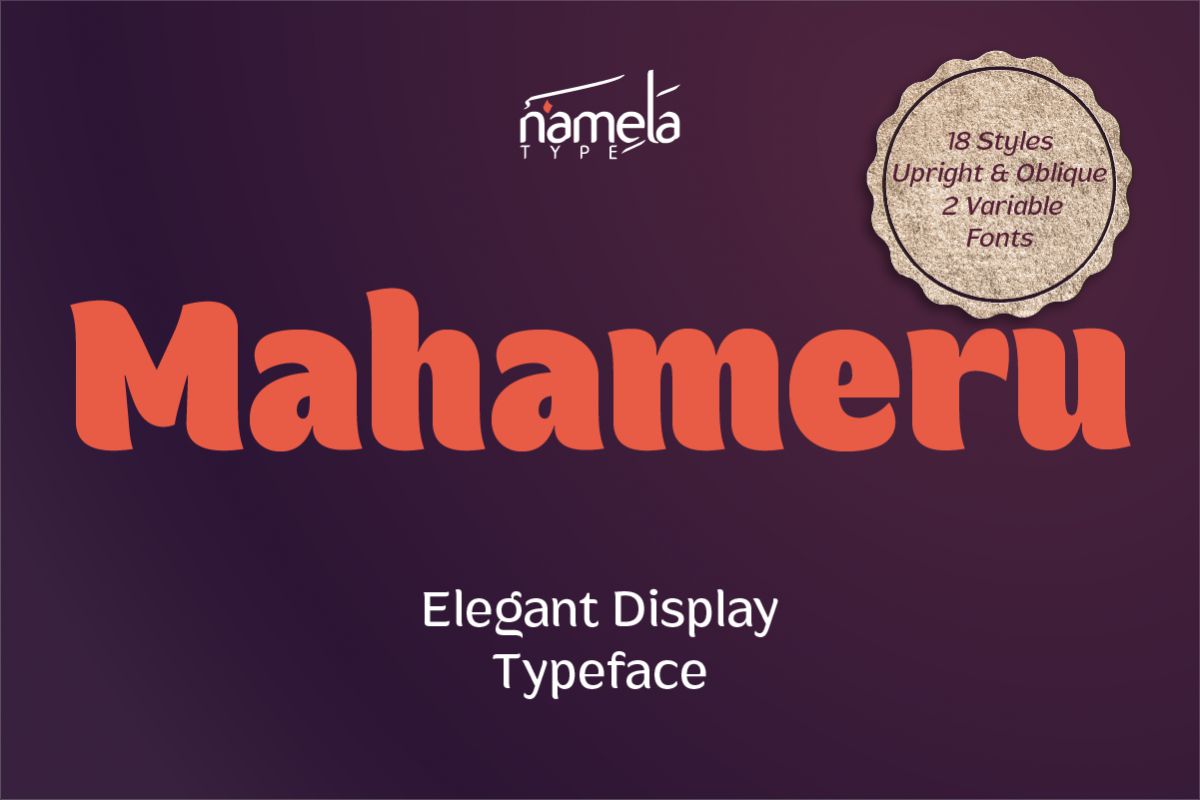
Mahameru Thin Oblique
Mahameru Font - An Elegant Display Typeface for Branding & ePub Some typefaces quietly do their job. Mahameru Elegant Display Font commands the room. This elegant display typeface is built for designs that need to make a statement—bold, proportional, and visually striking at any scale. With its clean structure, sharp contrast, and distinctive terminals, Mahameru is a strong choice for premium branding, editorial headlines, and ePub covers that demand immediate visual impact.